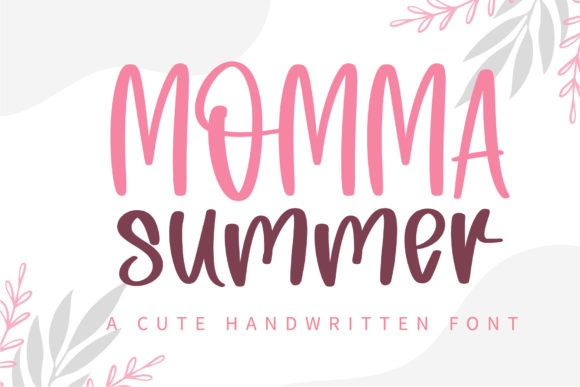
Momma Summer Font: A Cute and Flexible Handwritten Font
The Momma Summer Font is a delightful addition to the world of typography, offering a unique and natural style that can elevate a wide range of designs. This beautiful handwritten font is perfect for creatives looking to add a personal touch to their projects. In this article, we’ll dive into the features and benefits of the Momma Summer Font, and explore its endless possibilities.
Key Features of Momma Summer Font
- Cute and Flexible: The Momma Summer Font boasts a charming and adaptable design, making it suitable for various applications, from digital content to print materials.
- Handwritten Style: This font’s handwritten style gives it a personal and organic feel, perfect for adding a touch of warmth and personality to your designs.
- Natural and Unique: The Momma Summer Font’s natural and unique style sets it apart from other fonts, making it an excellent choice for creatives looking to stand out.
Endless Design Possibilities with Momma Summer Font
The Momma Summer Font’s versatility makes it an excellent choice for a wide range of design applications. Here are a few ideas to get you started:
- Digital Content: Use the Momma Summer Font to create engaging social media graphics, blog posts, and website content that stands out from the crowd.
- Print Materials: Add a personal touch to your print materials, such as brochures, flyers, and posters, with the Momma Summer Font’s charming handwritten style.
- Branding and Packaging: Create a unique and memorable brand identity with the Momma Summer Font, perfect for product labels, business cards, and more.
- Events and Invitations: Make your event invitations and promotional materials stand out with the Momma Summer Font’s elegant and sophisticated design.
The Benefits of Using Momma Summer Font
The Momma Summer Font offers several benefits that make it an excellent addition to your design toolkit. Here are a few advantages of using this beautiful font:
- Easy to Read: The Momma Summer Font is designed to be easy to read, making it perfect for body text and longer content.
- Highly Versatile: This font’s flexibility makes it suitable for a wide range of design applications, from digital content to print materials.
- Unique Style: The Momma Summer Font’s natural and unique style sets it apart from other fonts, making it an excellent choice for creatives looking to stand out.
Tips and Tricks for Using Momma Summer Font
To get the most out of the Momma Summer Font, here are a few tips and tricks to keep in mind:
- Experiment with Font Sizes: The Momma Summer Font looks great in a variety of font sizes, so don’t be afraid to experiment and find the perfect size for your design.
- Pair with Other Fonts: The Momma Summer Font pairs well with other fonts, so try combining it with different fonts to create a unique and visually appealing design.
- Use in Combination with Images: The Momma Summer Font looks great in combination with images, so try using it to add text to your photos and illustrations.
Font Pairing Suggestions for Momma Summer Font
The Momma Summer Font can be paired with a variety of other fonts to create a unique and visually appealing design. Here are a few font pairing suggestions:
- Open Sans: The clean and modern design of Open Sans pairs well with the natural and unique style of the Momma Summer Font.
- Lato: The elegant and sophisticated design of Lato pairs well with the charming handwritten style of the Momma Summer Font.
- Merriweather: The classic and timeless design of Merriweather pairs well with the natural and unique style of the Momma Summer Font.
The Momma Summer Font is a beautiful and versatile handwritten font that can elevate a wide range of designs. Its natural and unique style makes it an excellent choice for creatives looking to add a personal touch to their projects. With its endless possibilities and flexibility, the Momma Summer Font is sure to become a favorite in your design toolkit.